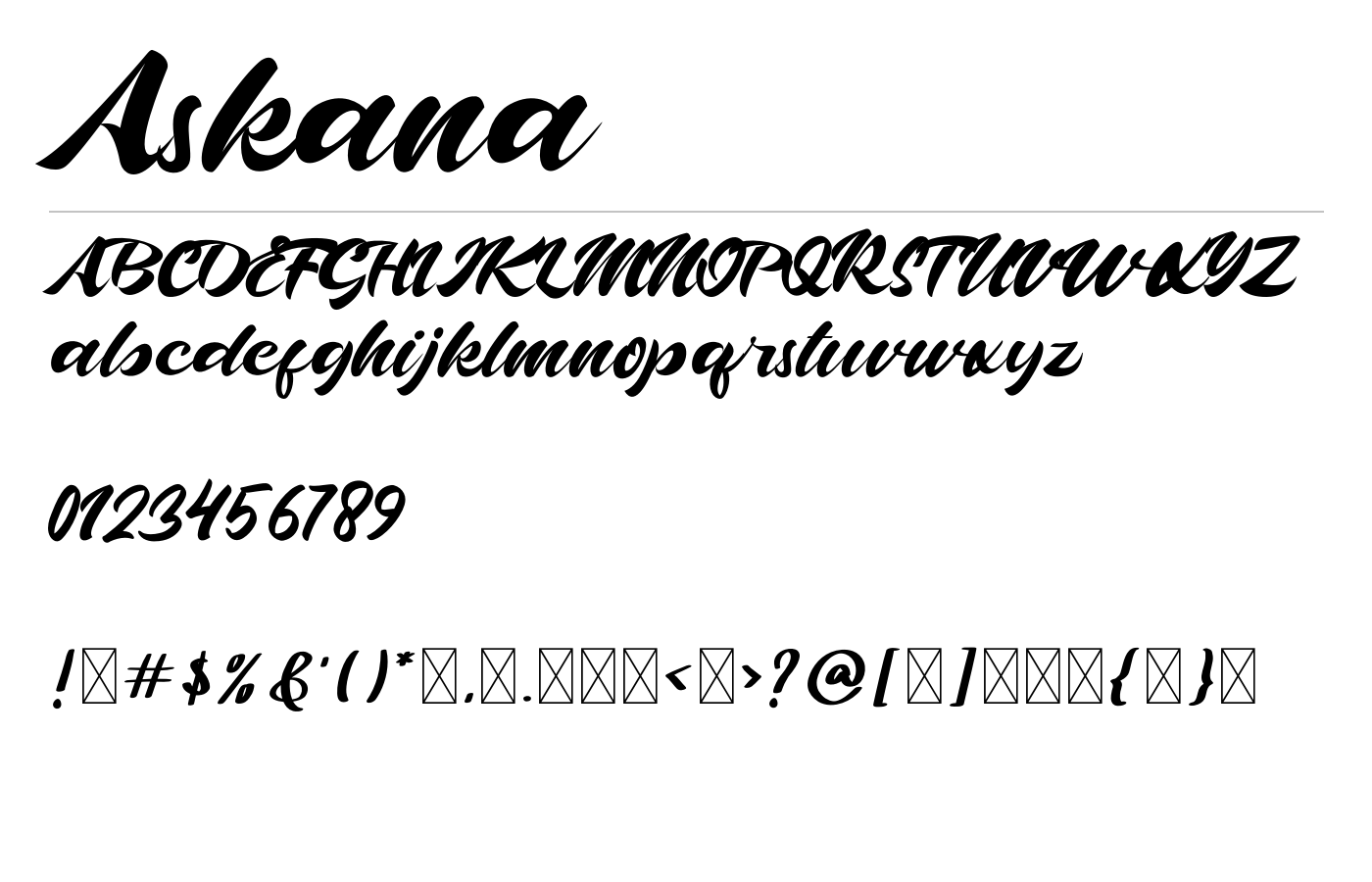
Askana is an elegant script font with a bold, flowing style that combines smooth curves and a confident, modern brushstroke feel. Its medium weight and dynamic letterforms make it perfect for adding a touch of sophistication and personality to logos, headlines, or packaging in fashion, beauty, and creative branding. This font stands out with its lively yet refined presence, making designs feel both stylish and approachable.
Askana Font
About Askana Font